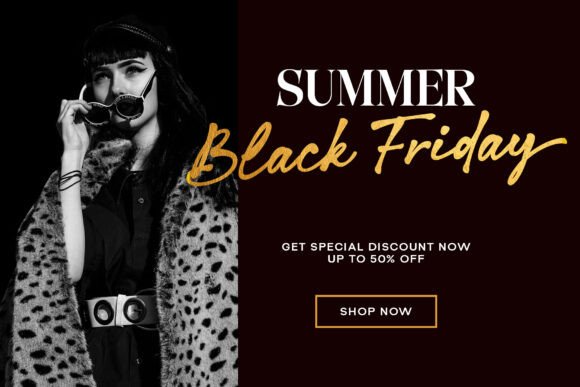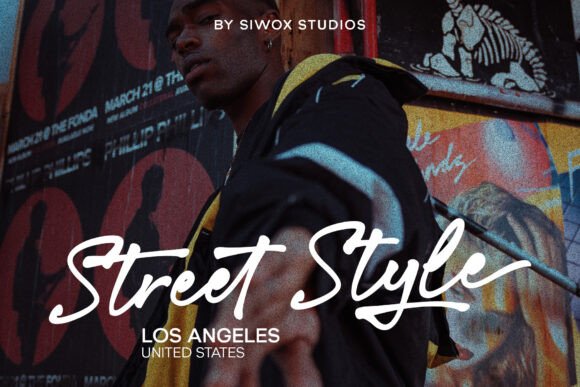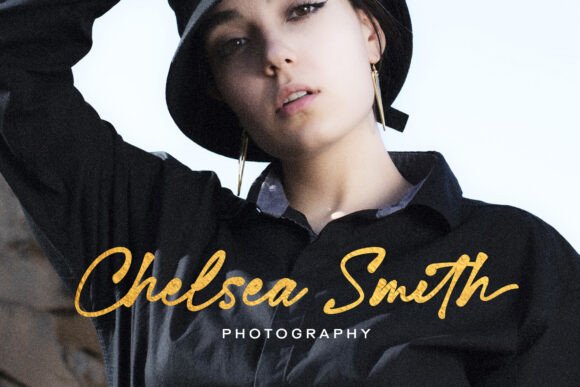
Introduction to Hollinet Signature Font
As a designer, have you ever found yourself rummaging through your font collection, searching for that perfect handwritten touch to elevate your creative project? The thrill of discovery, the excitement of experimentation, and the satisfaction of seeing your design come to life – it’s a moment we all cherish. And, if you’re anything like us, you’re always on the lookout for that special something that sets your work apart from the rest.
Enter Hollinet Signature Font – a beautiful, high-quality, handwritten font that’s about to become your new design BFF. With its transparent background and effortless charm, this font is perfect for adding a personal touch to your branding, wedding invitations, promotions, and product packaging. Whether you’re working on a free download or a high-stakes design project, Hollinet Signature Font is sure to deliver.
In this article, we’ll dive into the world of Hollinet Signature Font and explore its unique features, benefits, and uses. Get ready to discover a design resource that will take your creative projects to the next level!
Key Features of Hollinet Signature Font
- High-Quality Design Resource: The Hollinet Signature Font is a premium quality font designed for creative projects, offering a unique and stylish look.
- Transparent Background: This font features a transparent background, making it easy to use on any design or creative project with a clear background.
- Unique Characteristics: The Hollinet Signature Font features a distinctive and elegant design, with unique characteristics that set it apart from other fonts in its category.
- Easy to Use: The font is easy to use, even for designers without extensive experience, making it an excellent choice for creative projects of all sizes.
Honest Review: Hollinet Signature Font
I recently had the chance to try out the Hollinet Signature Font and I’m excited to share my thoughts with you. As a designer, I’m always on the lookout for high-quality design resources to elevate my creative projects.
- ✨ The font is incredibly versatile and can be used for a wide range of applications, from business cards to website headers.
- ✨ The transparent background makes it easy to layer over other design elements and create a seamless look.
- ⚠️ The font can be a bit too ornate for some projects, so be sure to use it judiciously.
- ⚠️ Some users may find the font difficult to read at very small sizes.
Overall, I’m impressed with the Hollinet Signature Font and would definitely recommend it to designers looking for a high-quality, free download to add some sophistication to their projects.
Tips for Getting the Most Out of Hollinet Signature Font
Use the Hollinet Signature Font in combination with other design elements to create a unique and eye-catching design. Experiment with different font sizes and colors to find the perfect look for your creative project. You can also use the font to create a consistent brand identity across all your marketing materials.
The Hollinet Signature Font is perfect for a variety of creative projects, including logos, business cards, and social media graphics. It’s also great for creating a consistent brand identity across all your marketing materials, such as brochures, flyers, and presentations. With its high-quality design and transparent background, the Hollinet Signature Font is a great resource for any designer or business owner.
Yes, the Hollinet Signature Font supports transparent backgrounds, allowing designers to create stunning designs with a seamless look. This feature is particularly useful for creative projects that require a high level of customization.